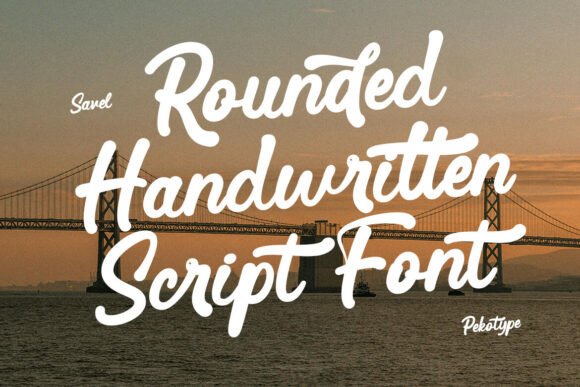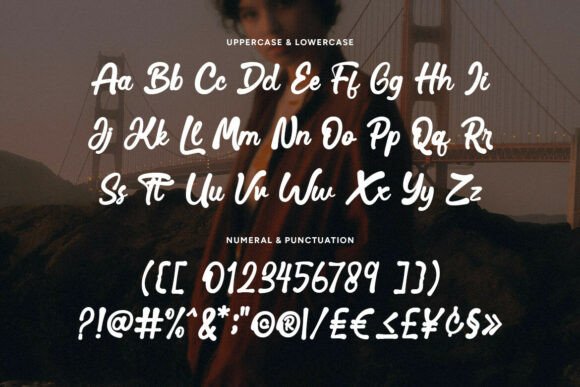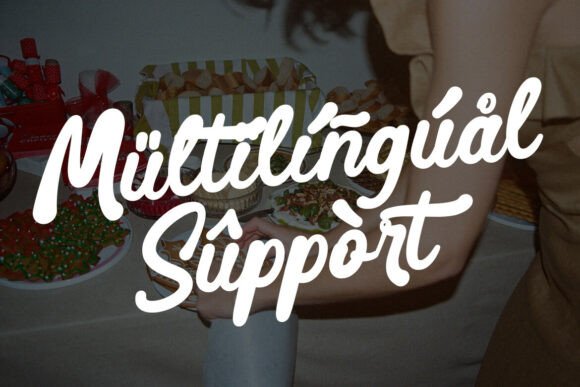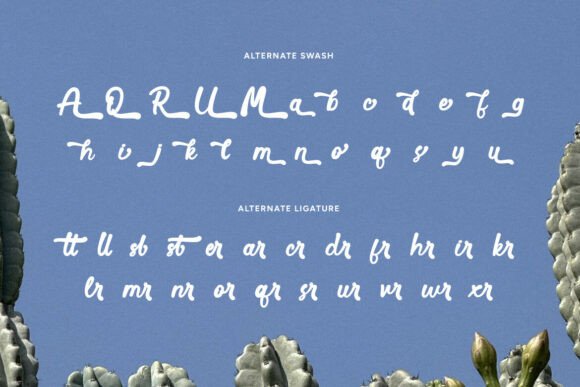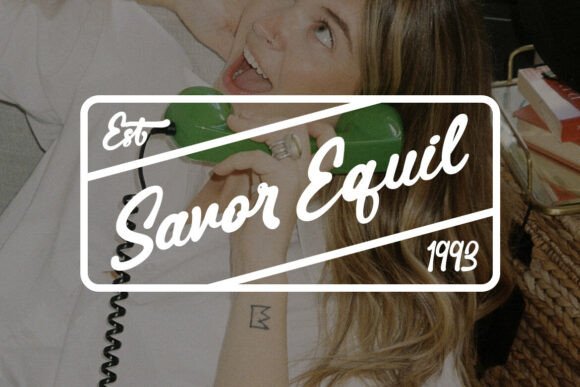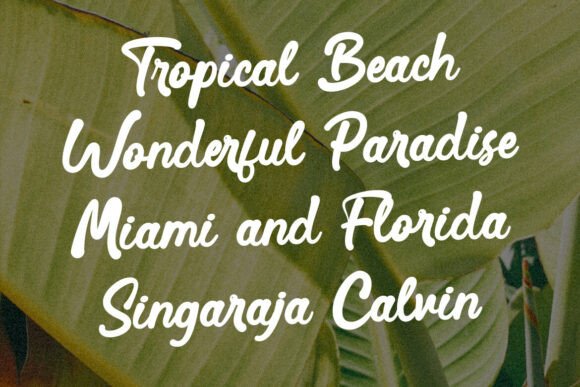
Introduction to Savel Font
Say hello to SAVEL, a bold, rounded script font that brings charm, confidence, and versatility to your designs.
Handcrafted with a smooth, friendly flow, SAVEL combines the warmth of handwritten curves with the impact of bold lettering โ making it the perfect choice for branding, logo design, packaging, posters, promotional materials, print media, and social media content Whether youโre crafting a product label, launching a creative brand, or designing eye-catching marketing assets, SAVEL adds a personal and professional touch to any project.
Key Features of Savel Font
Why Choose Savel Font?
Savel Font offers exceptional quality and versatility, making it a valuable addition to your design toolkit. Whether you’re creating for personal projects or commercial use, Savel Font delivers professional results.